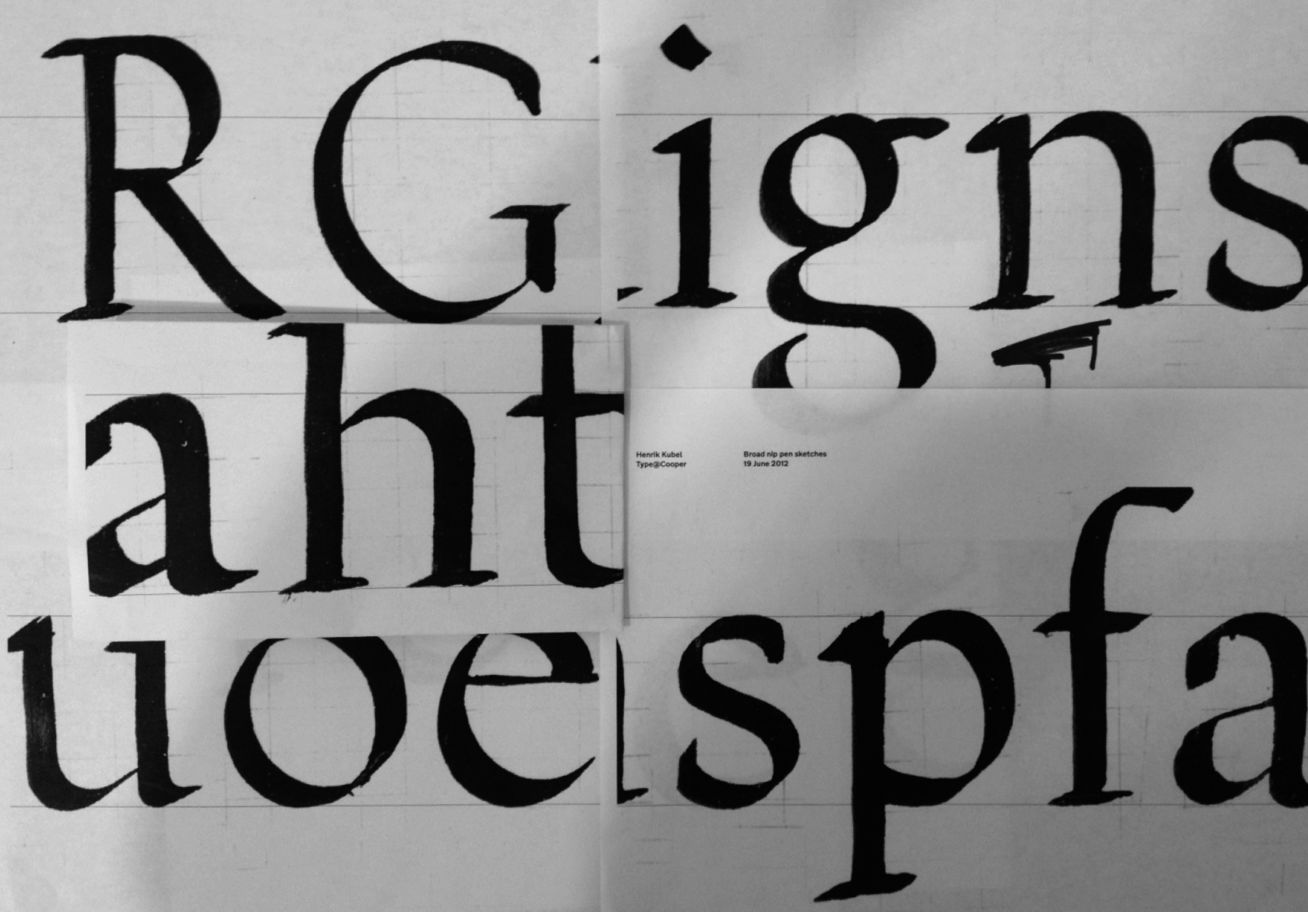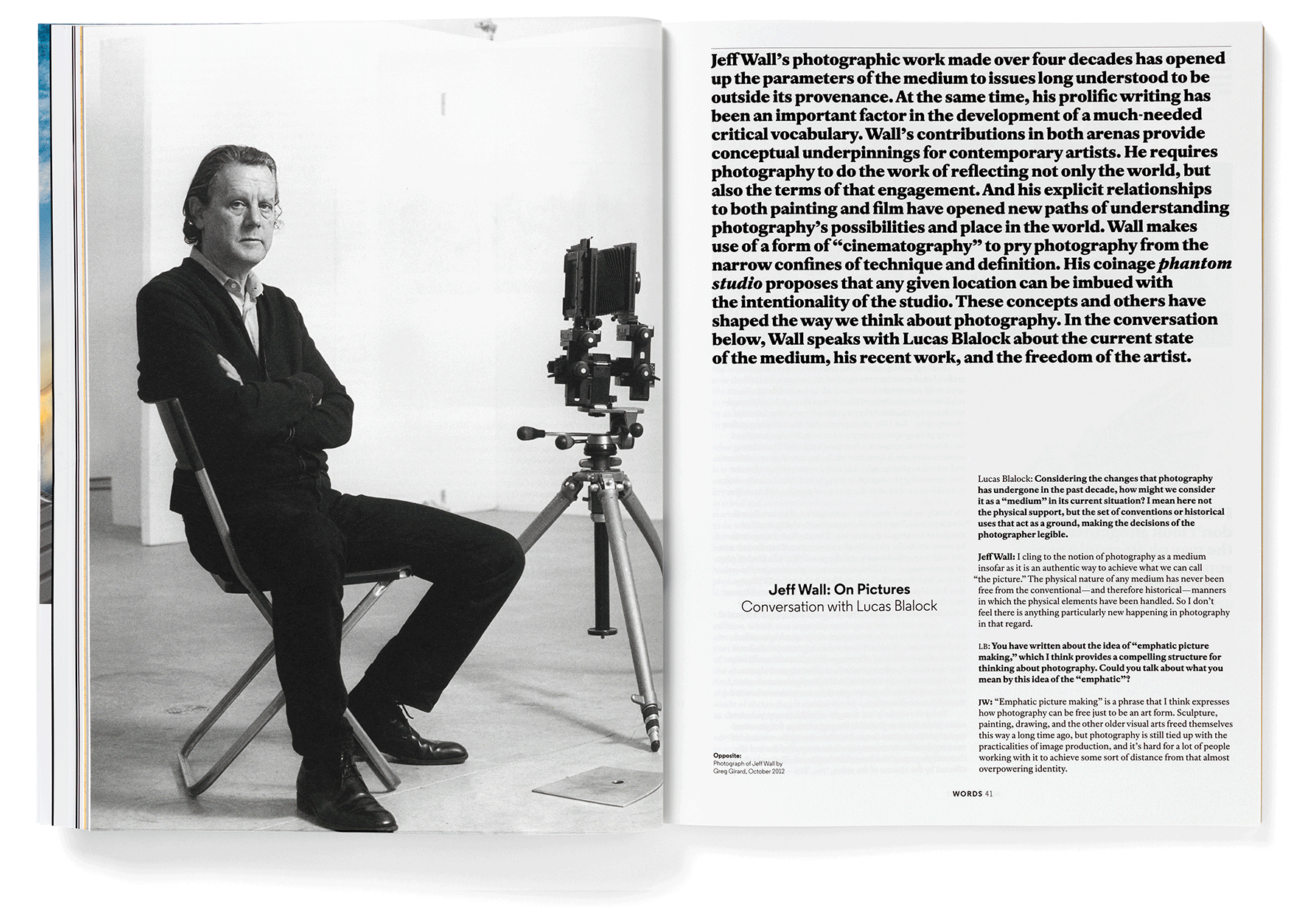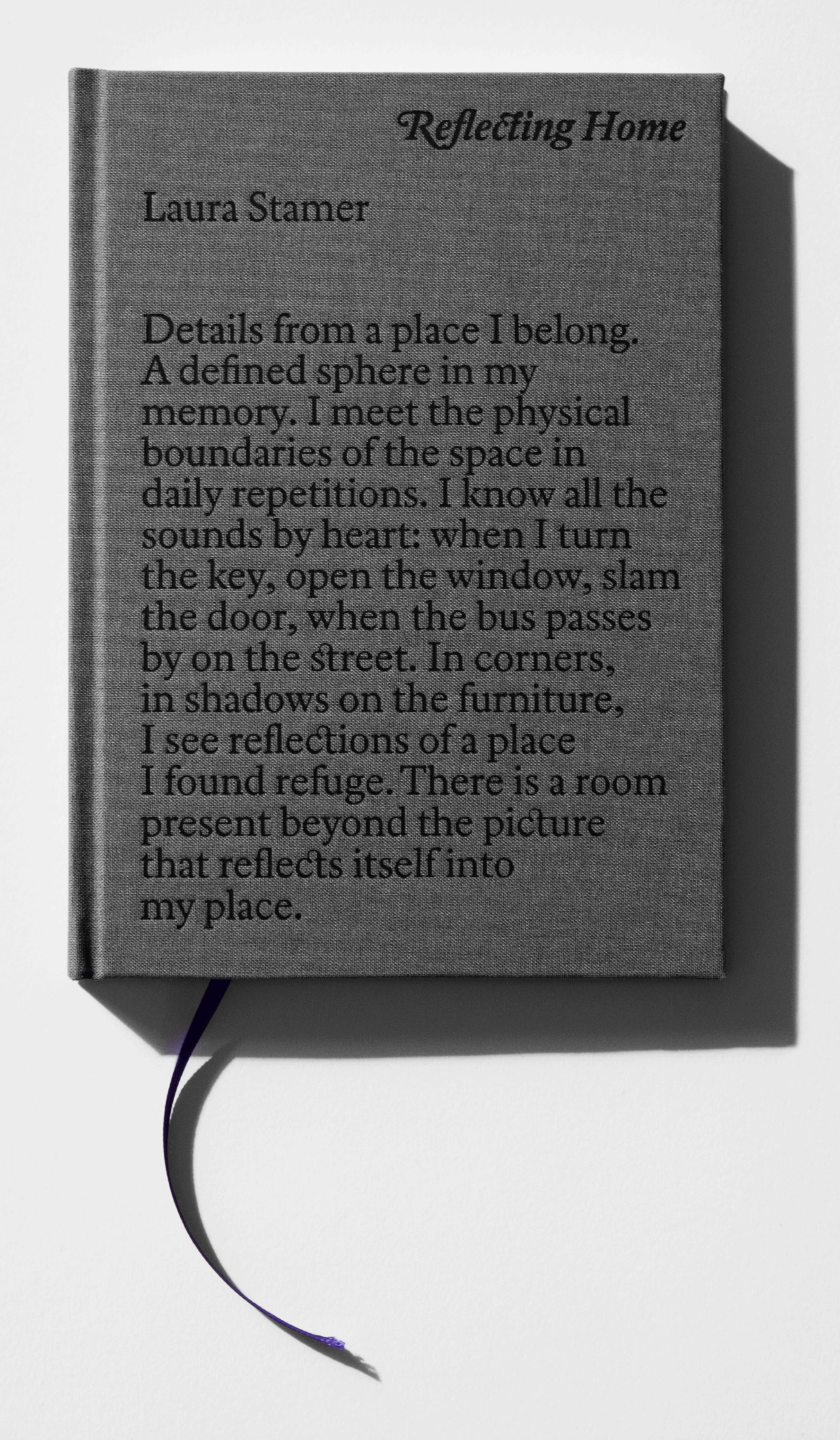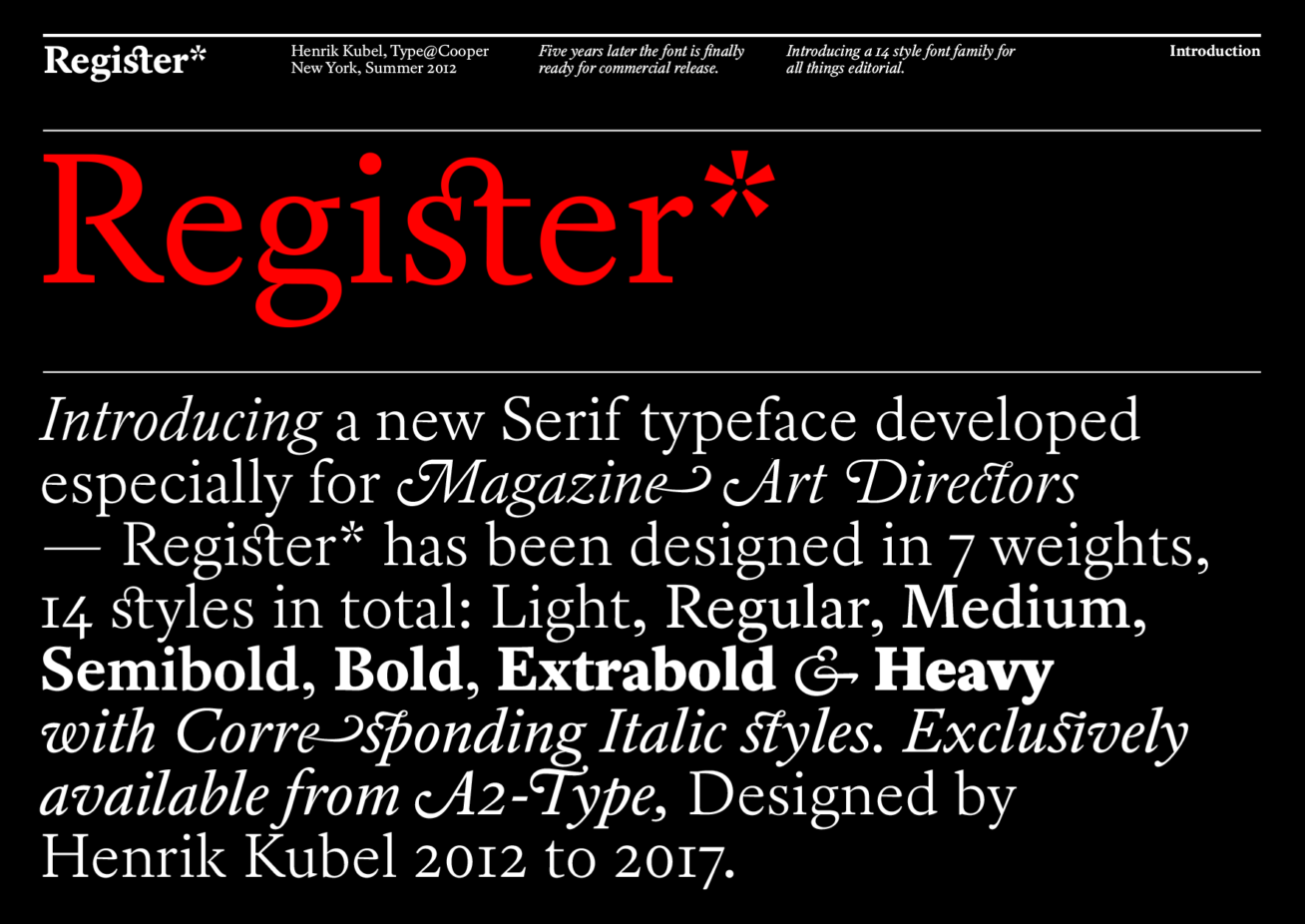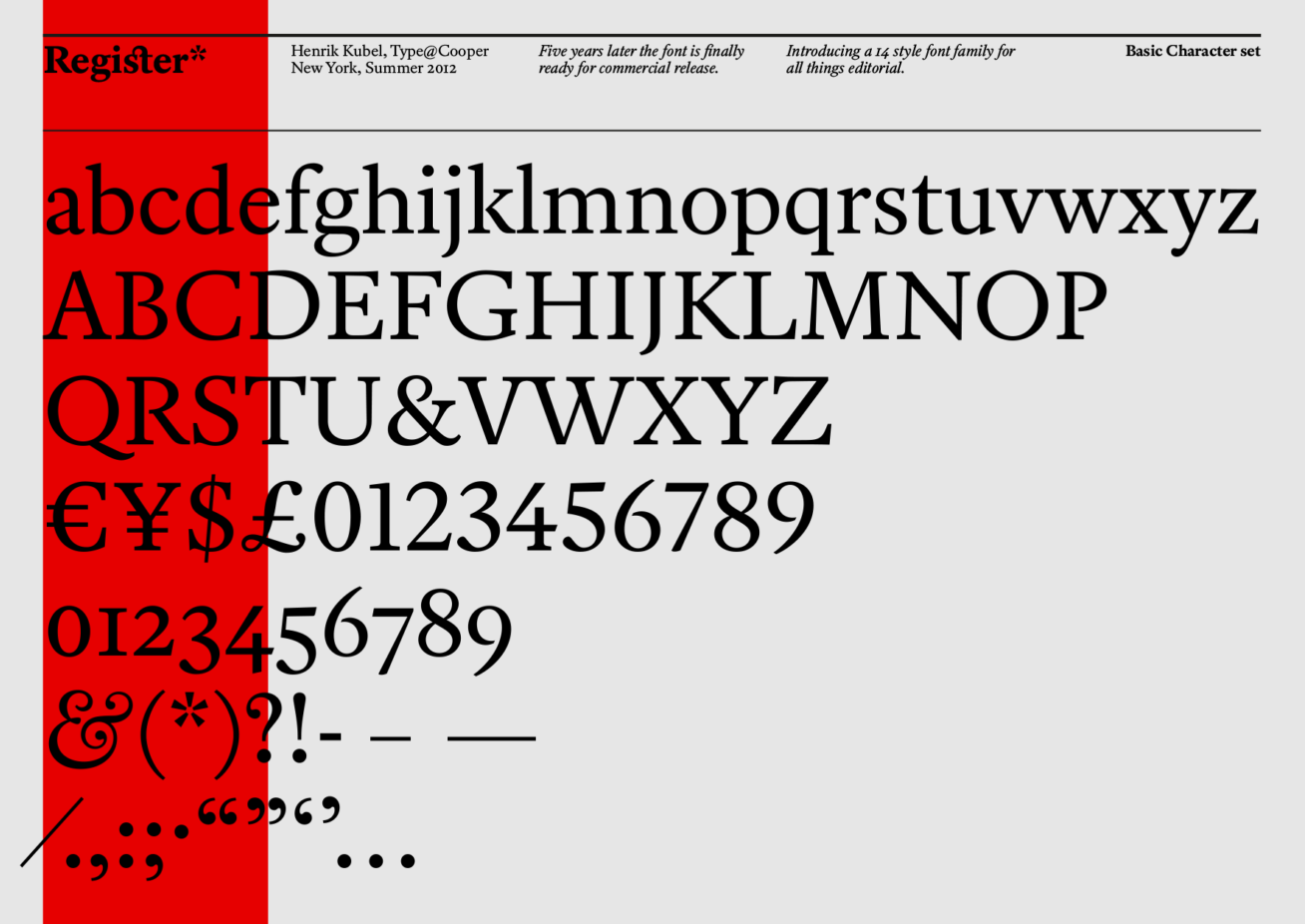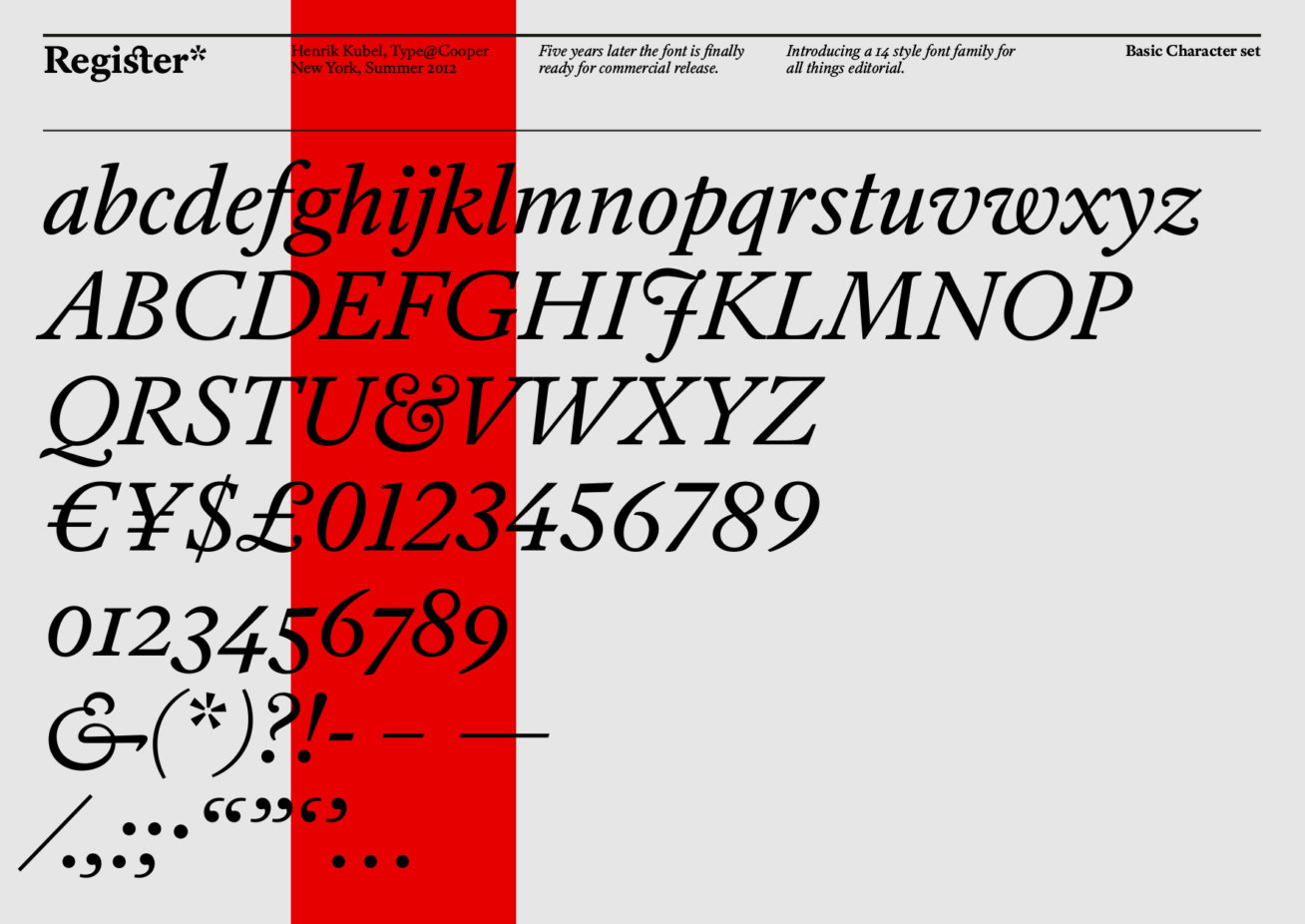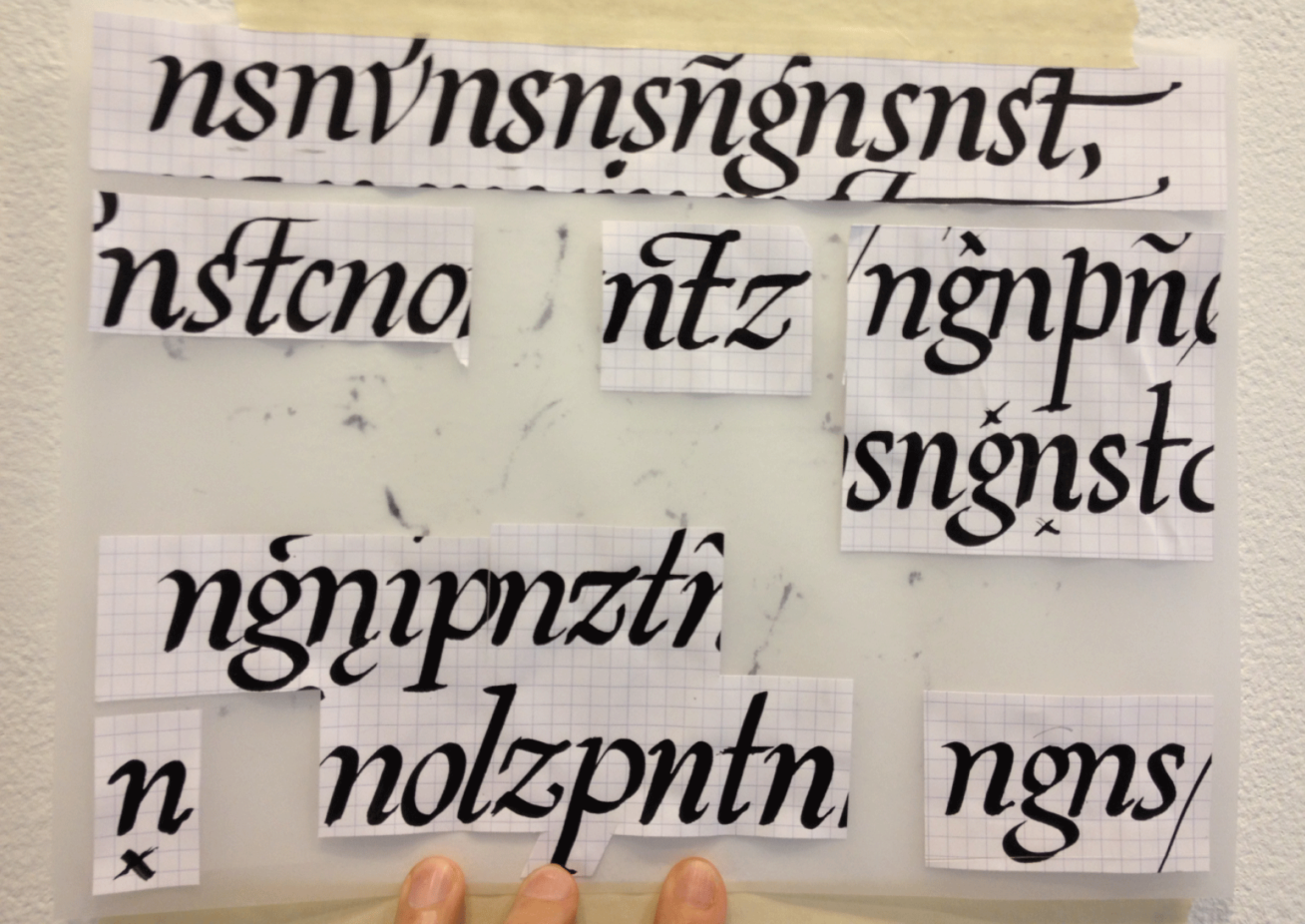
Inspired by French Renaissance era type and traditional broad-nib calligraphy, Register* is a family of versatile serif typefaces crafted with today’s designer & editorial art director in mind. The typeface launched exclusively as a proprietary face for A2/SW/HK’s award winning redesign of the premier photography magazine, ‘Aperture’ in spring 2013. Since then, variations of those typefaces have been customised for Art Quarterly magazine and The Sunday Times Magazine (UK), and they later became a key reference point in the design of the Independent newspaper fonts.
| Font name: | Register* |
| Font category: | Serif |
| Styles: | Light Light Italic Regular Italic Medium Medium Italic SemiBold Italic Bold Bold Italic ExtraBold Italic Heavy Heavy Italic |
| Script: | Latin |
| Manufacturer: | A2-TYPE |
| Designer: | Henrik Kubel |